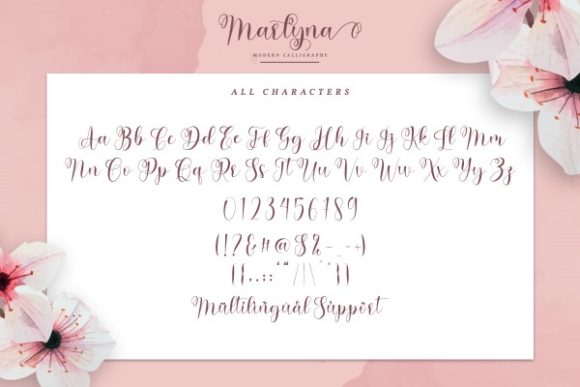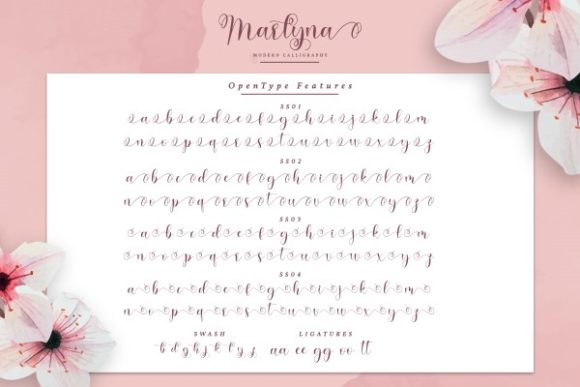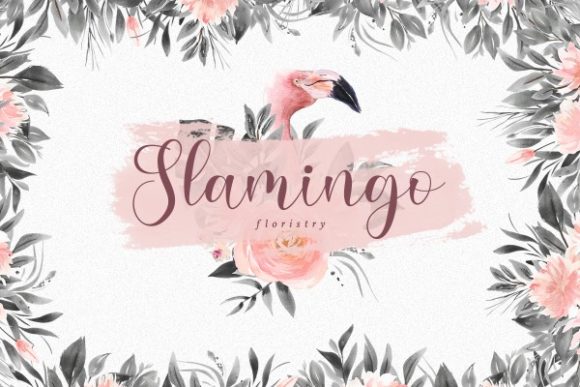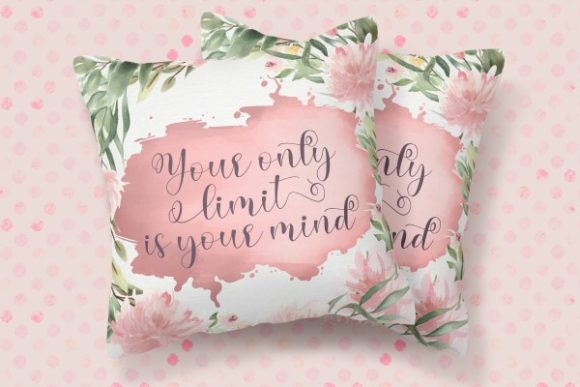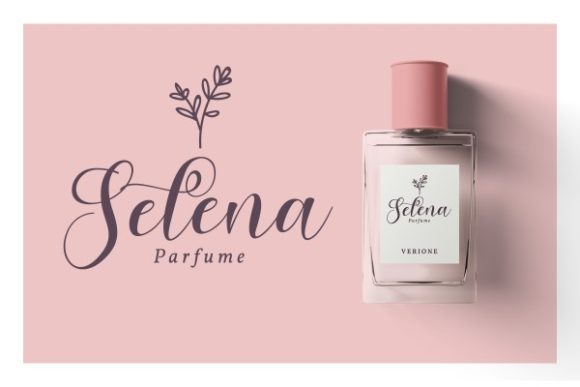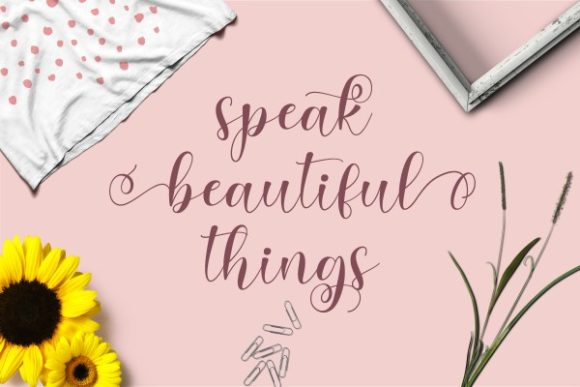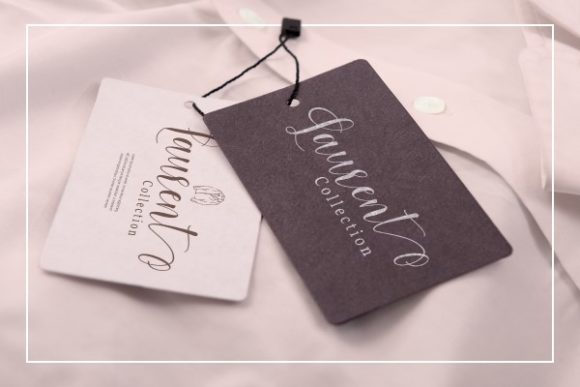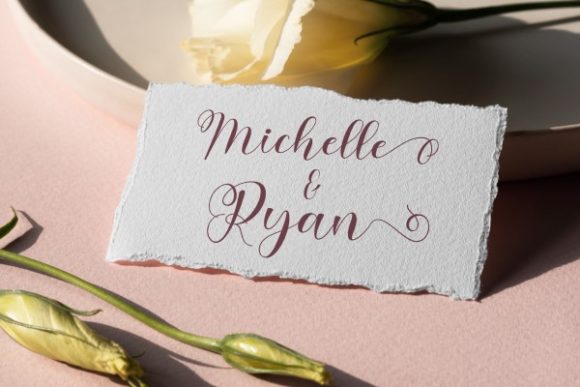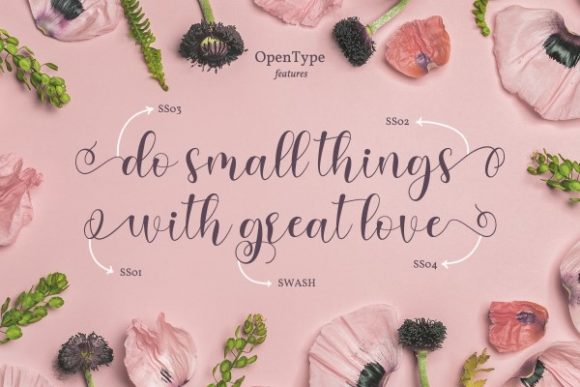
Marlyna Font
About Marlyna Font
Marlyna is a beautiful handwritten font with an incredibly friendly feel. It features gorgeous swashes and ligatures that make this script incredibly versatile. Whether you’re looking for fonts for Instagram or calligraphy scripts for DIY projects, Marlyna will turn any creative idea into a true piece of art!